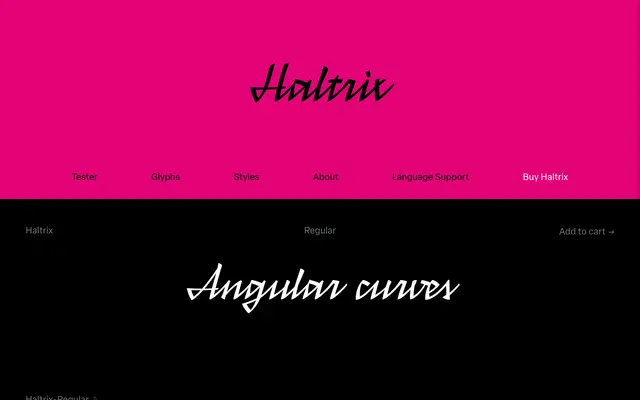
Haltrix
A connected script built on straight lines and hard angles, drawing on the designer's own handwriting and blackletter forms rather than the smooth curves typical of the genre.
Where most script typefaces rely on fluid curves and decorative swashes, Haltrix takes the opposing position: every letterform is constructed to maximise angularity and minimise curves, producing a script with an aggressive, handwritten edge. The single Regular style uses OpenType Contextual Alternates to maintain natural connections between letters, supplemented by several alternates and swashes. The designer cites Gabriel Martínez Meave's Arcana and Roger Excoffon's Mistral as peers, placing it within a tradition of expressive, personality-driven scripts that resist elegance in favour of character.
A connected script typeface that deliberately avoids smooth curves in favour of angular, straight-line segments, with influences from blackletter; categorised as script due to its handwritten, connected letterforms despite its aggressive geometry.